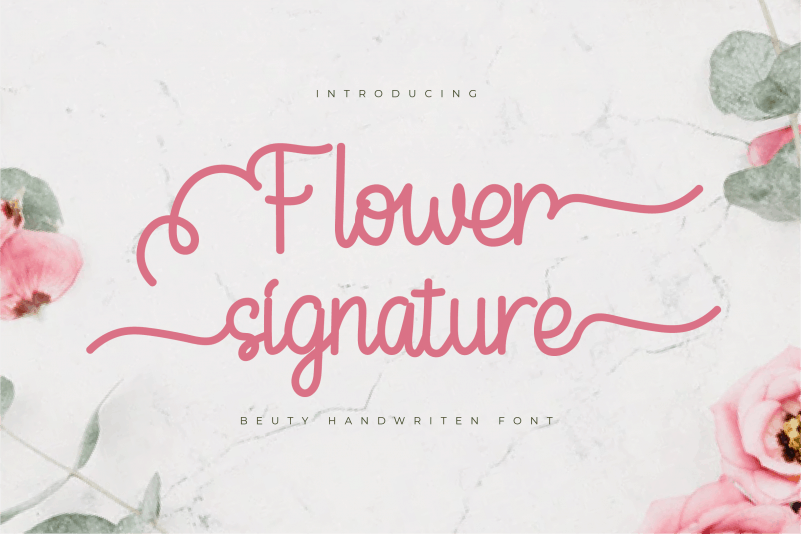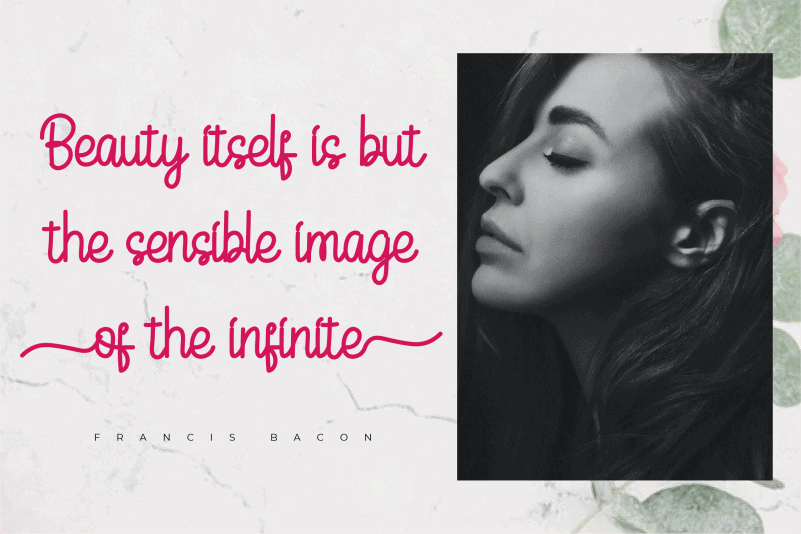
Flower Signature Script Font
Flower Signature Script Font is an beautiful handwritten font. It will elevate a wide range of design projects to the highest level, be it branding, headings, wedding designs, invitations, signatures, logos, labels, and much more!